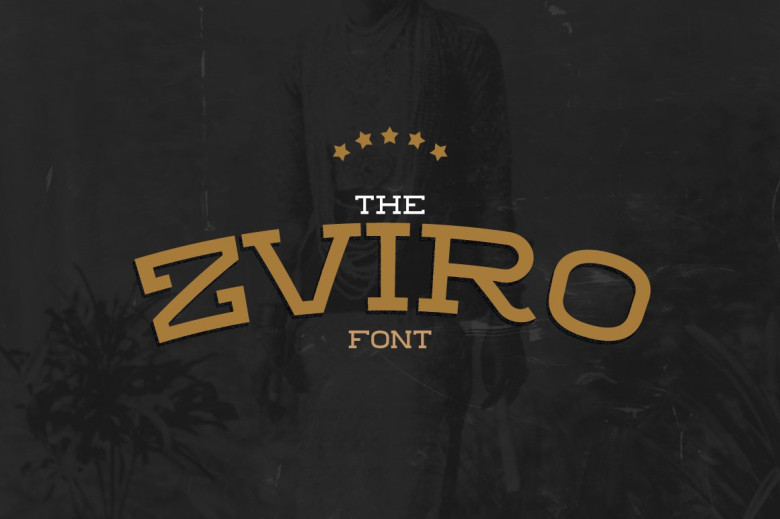
Zviro Font
ZVIRO-FONT is a design from zar ni, a professional designer, the author of ZEBRAZIL Font, was shared on Befonts. ZVIRO is a font slab-serif, is designed in classic style, combined with blackletter font, with evenly spaced lines, very impressive. You can use this font for many different design purposes.